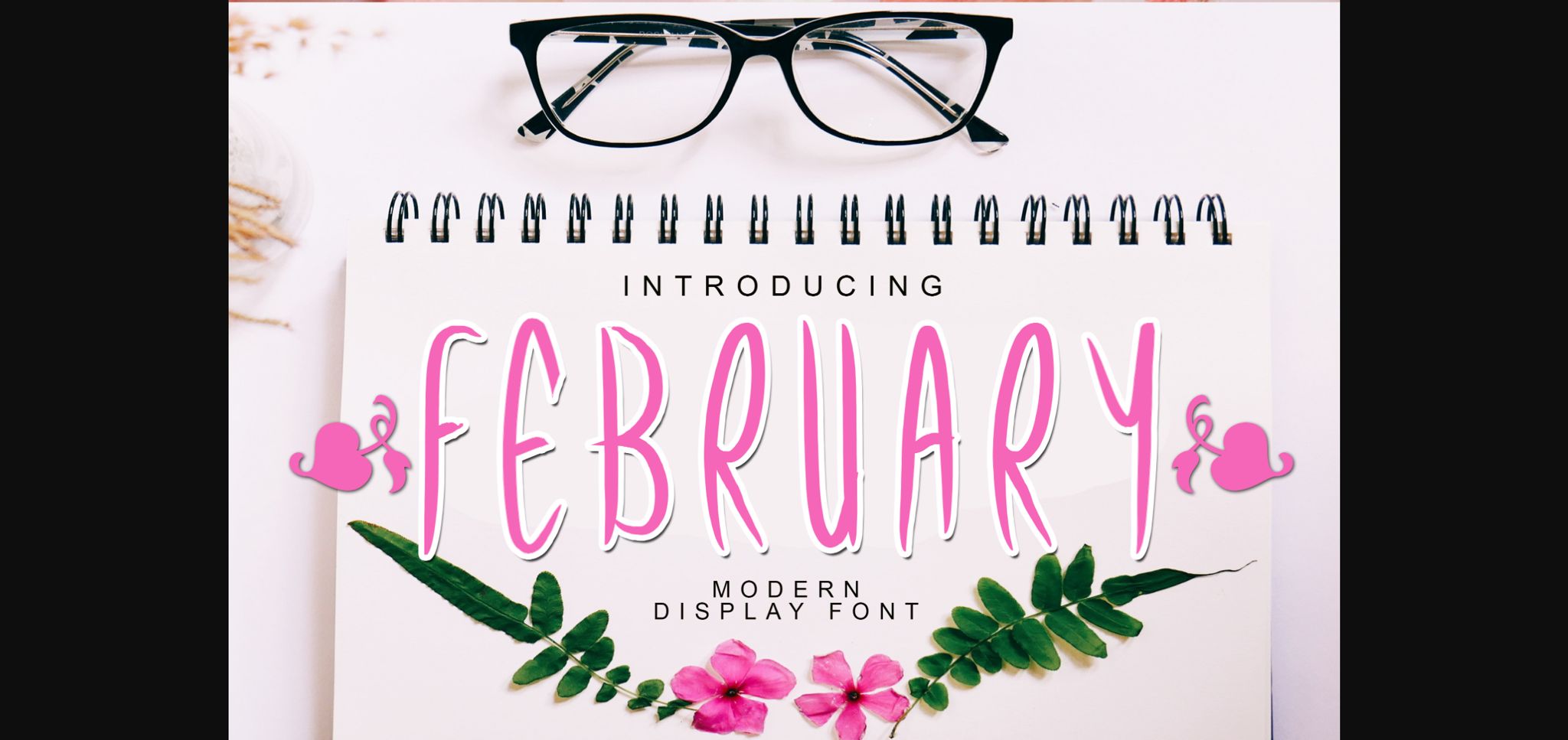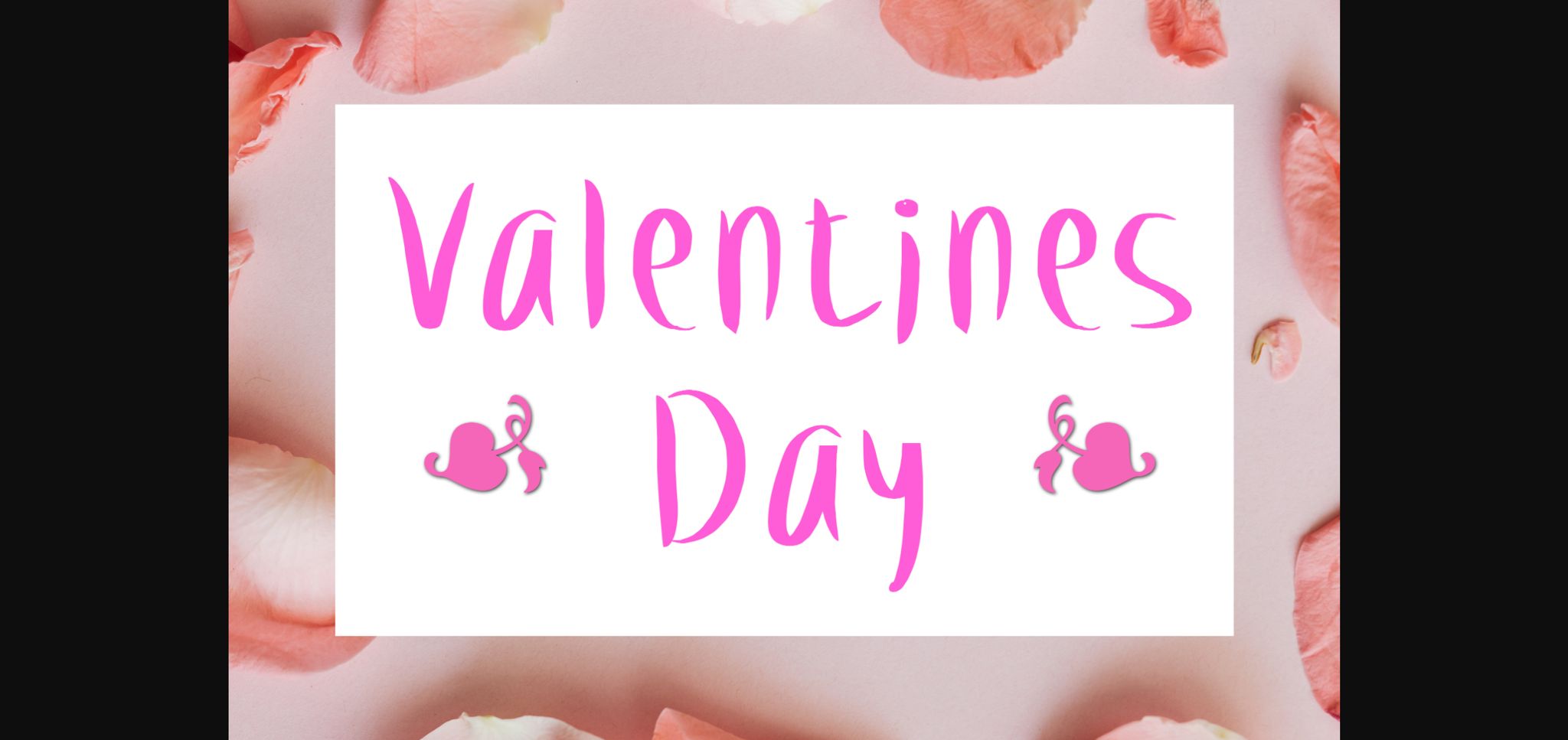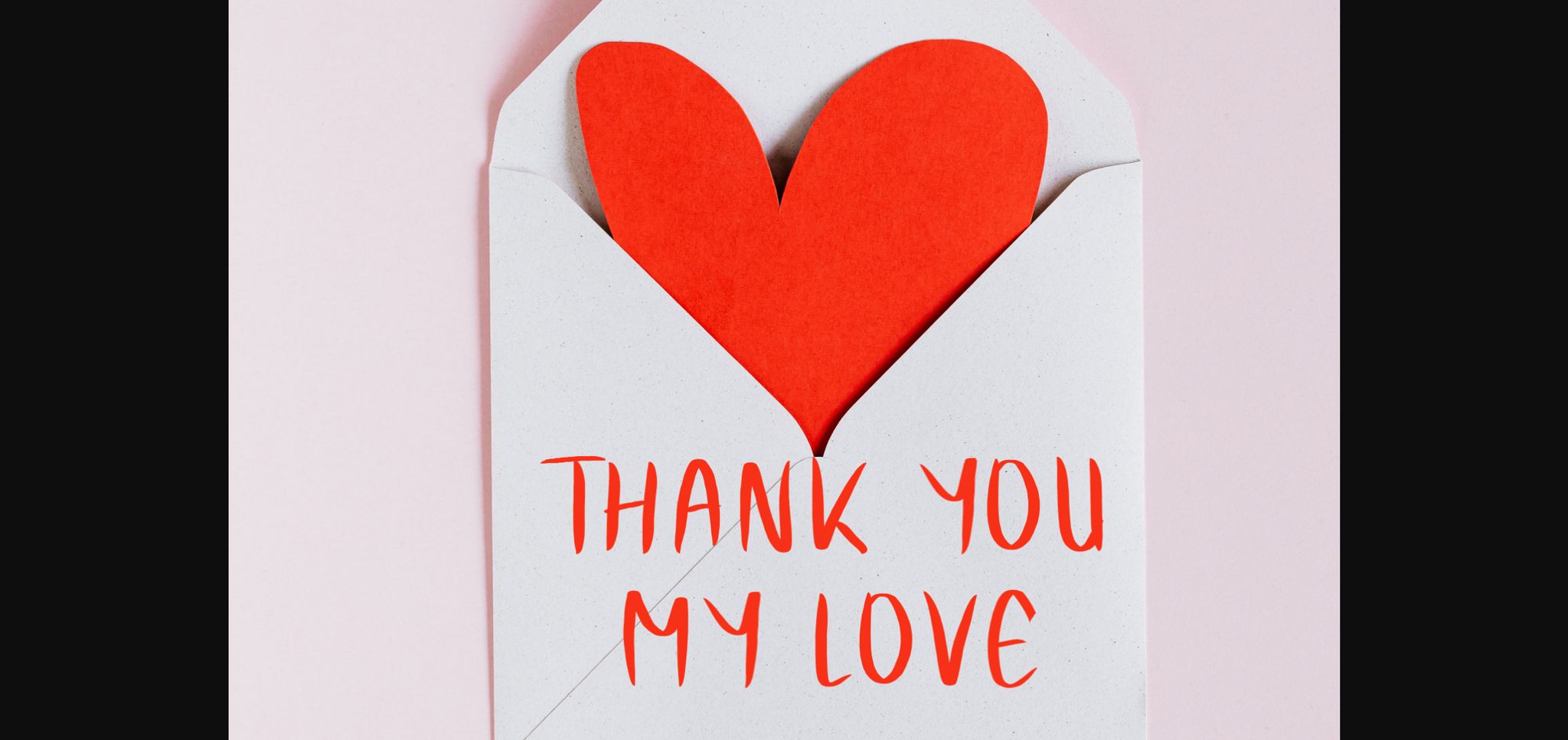
HomeSans Serif FontsFebruary Font Sans Serif Fonts February Font FacebookXPinterestWhatsApp 1 of 5 ... February Font Poster 2... February Font Poster 3... February Font Poster 4... February Font Poster 5... About February Font February is a narrow and elongated sans serif font with a lot of versatility! Use this font in your valentine’s day crafts, teaching material, posters and so much more! DOWNLOAD NOW People also explored Easter Cute Font Realistic Mock-ups on Vintage Background Emolka Font Kimberli Font My Beloved Font Leshefo Font Violetail Modern Handwritten Font Beloved Hearts Retro Morey Font 344 0 TagsFebruary Font Previous articleTrostie Love FontNext articleHarvest Font LEAVE A REPLY Cancel reply Comment: Please enter your comment! Name:* Please enter your name here Email:* You have entered an incorrect email address! Please enter your email address here Website: Save my name, email, and website in this browser for the next time I comment. Personal Use Free Castina Personal Use Free Read more about this font Zelega Zenega Personal Use Free Read more about this font Pridaem Cooper Personal Use Free Read more about this font Alligator Font Personal Use Free Read more about this font BLOG Using Fonts in Digital Marketing: Tips to Strengthen Your Brand Identity In the realm of digital marketing, every visual element plays a crucial role in shaping a brand's identity, and fonts are no exception. The... The 10 Best Handwriting Fonts to Add Personality to Your Designs Best Fonts for T-Shirt Design – Top 2025 Picks How to Install and Use Fonts on Windows, macOS, and Web Projects